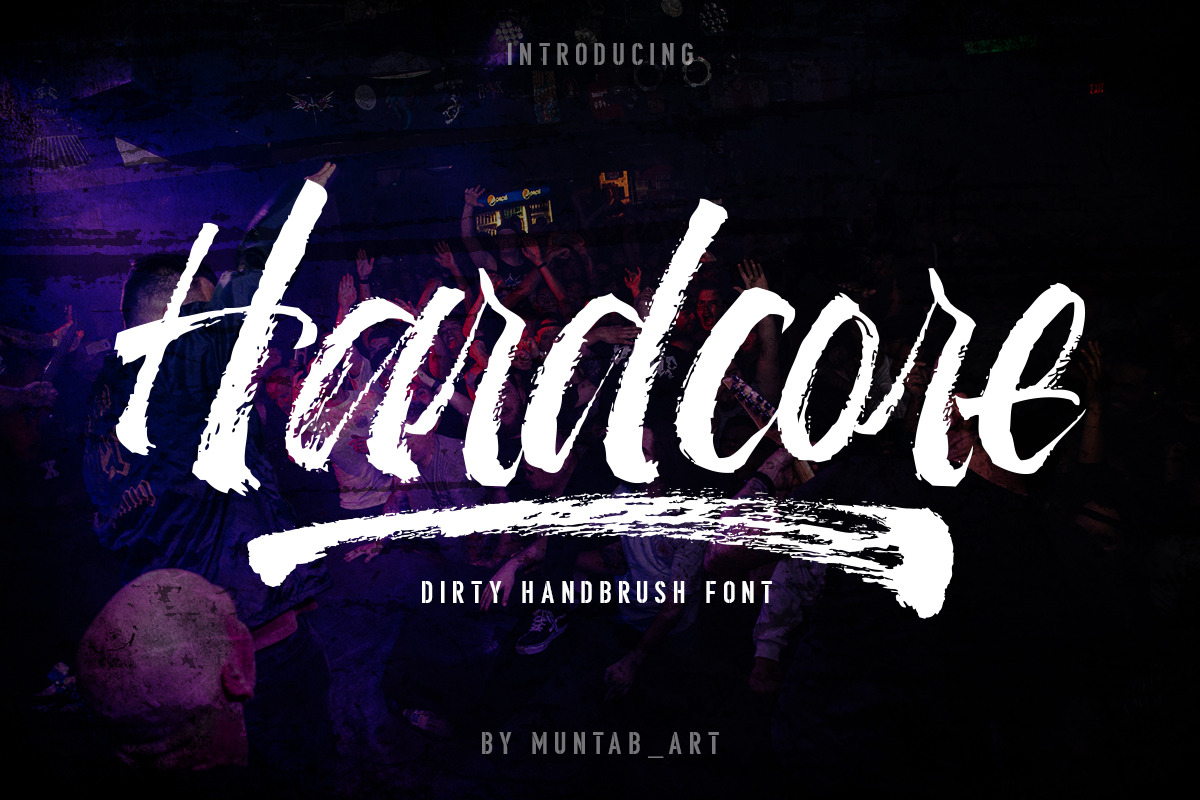
Hardcore | Hand Brush Font
Hardcore is a hand brush font includes uppercase and lowercase letters, numerals, a large range of punctuation, swash and ligatures.